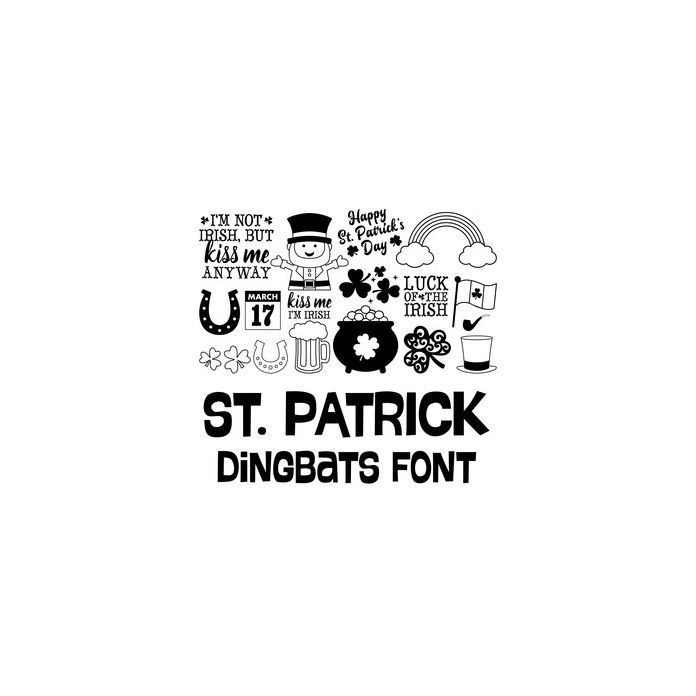
This cute dingbat font includes 26 St. Patrick's Day icons and phrases that you can type + cut. Make adorable projects quickly and easily with the characters in this fun font. For ideas and inspiration visit www.loriwhitlock.com and www.facebook.com/lori.whitlock.studio. For Lori's video tutorials visit www.youtube.com/loriwhitlock. For a full tutorials list visit www.loriwhitlock.com/blog/tutorials.